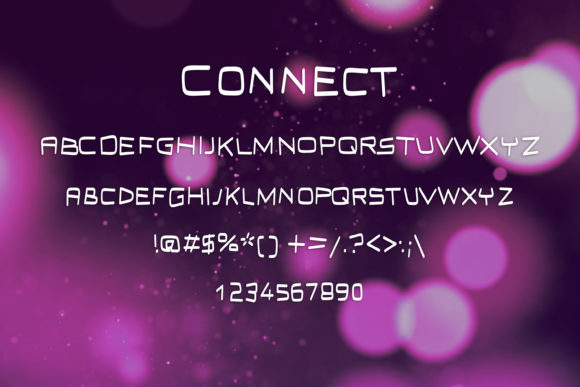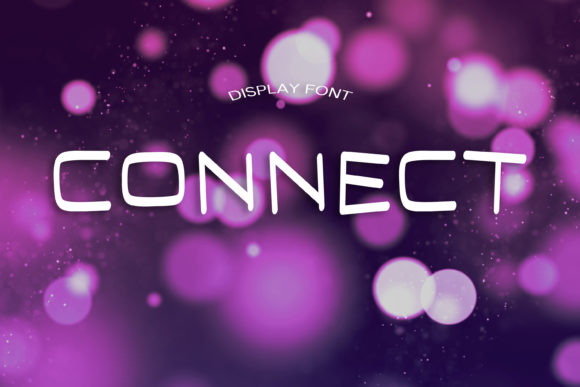
Introducing Connect Font: Elevate Your Design with Timeless Elegance
Are you tired of using the same old fonts in your design projects? Look no further than Connect Font, an elegant and strong display font that’s sure to make your work stand out. With its timeless feel and versatility, Connect Font is the perfect addition to any designer’s toolkit.
What Makes Connect Font Special?
Connect Font is an elegant and strong display font that’s designed to make a statement. Its unique features include:
- Timeless feel: Connect Font has a classic, sophisticated look that’s reminiscent of traditional typography. Its timeless feel makes it perfect for a wide range of design projects, from luxury brands to editorial content.
- Elegant lines: The font features elegant lines and curves that give it a sense of refinement and sophistication.
- Strong presence: Despite its elegant feel, Connect Font has a strong presence that commands attention. It’s perfect for headlines, titles, and other display text.
Connect Font is incredibly versatile and can be used in a wide range of design projects, including:
- Branding and logos: Use Connect Font to create a strong, memorable brand identity.
- Headlines and titles: Add elegance and sophistication to your headlines and titles with Connect Font.
- Editorial content: Use Connect Font to add a touch of luxury to your editorial content, such as magazines, newspapers, and blogs.
- Advertising and marketing materials: Connect Font is perfect for creating eye-catching ads and marketing materials that demand attention.
- Use it sparingly: Connect Font is a strong font that can overwhelm your design if overused. Use it sparingly to create maximum impact.
- Pair it with other fonts: Connect Font pairs well with other fonts, such as sans-serif fonts for body text. Experiment with different pairings to find the perfect combination.
- Experiment with colors and textures: Connect Font looks great in a variety of colors and textures. Experiment with different options to find the one that works best for your design.
Connect Font is an elegant and strong display font that’s sure to elevate your design projects. With its timeless feel, elegant lines, and strong presence, it’s the perfect addition to any designer’s toolkit. Whether you’re working on a branding project, editorial content, or advertising materials, Connect Font is the perfect choice. So why wait? Download Connect Font today and start creating stunning designs that demand attention.
- Elegant and strong display font
- Timeless feel
- Perfect for branding, headlines, titles, and editorial content